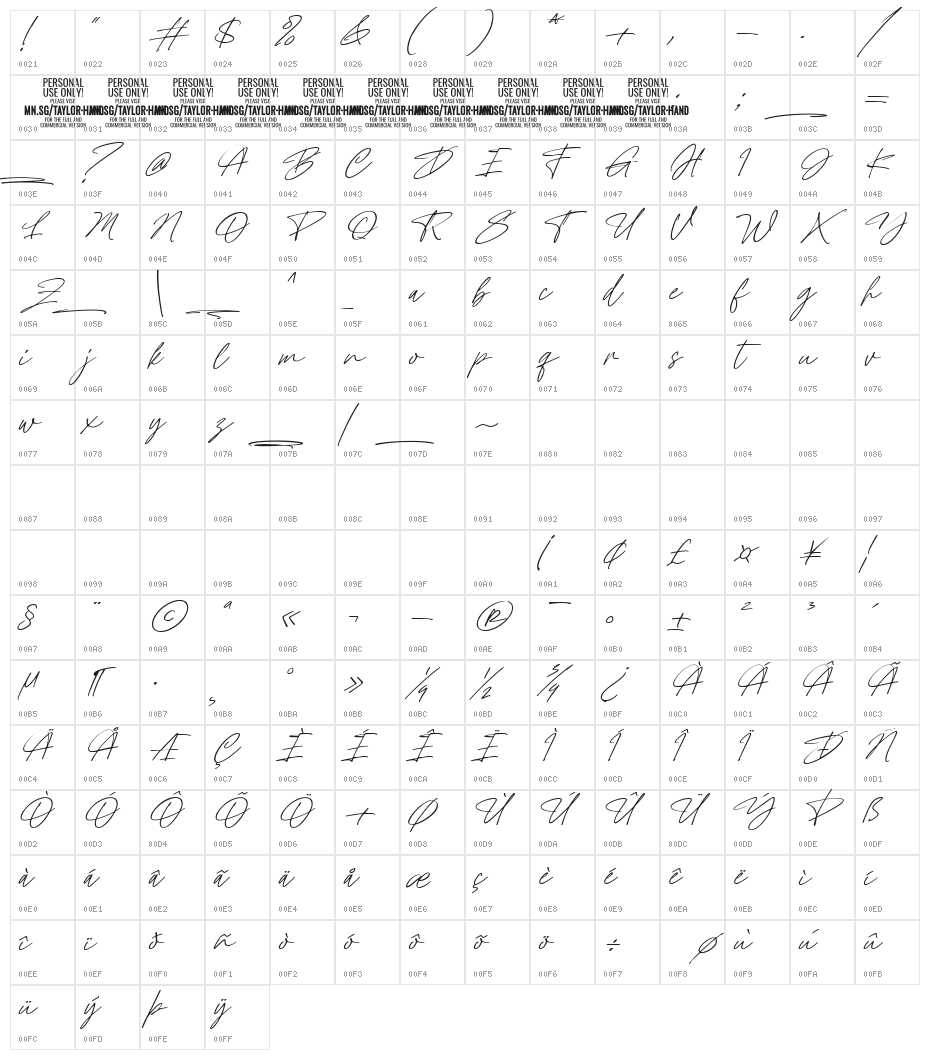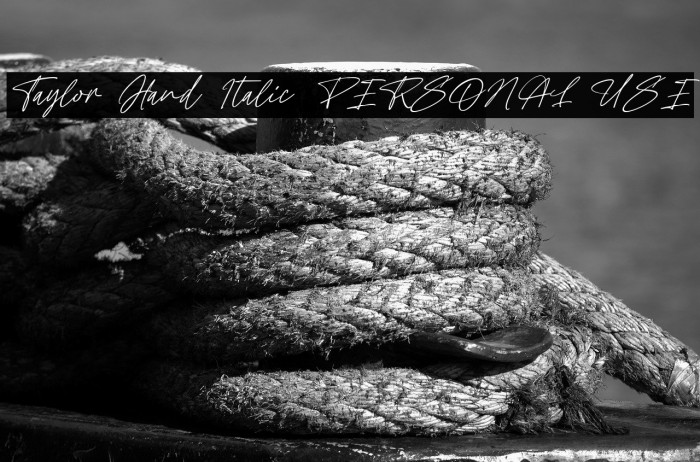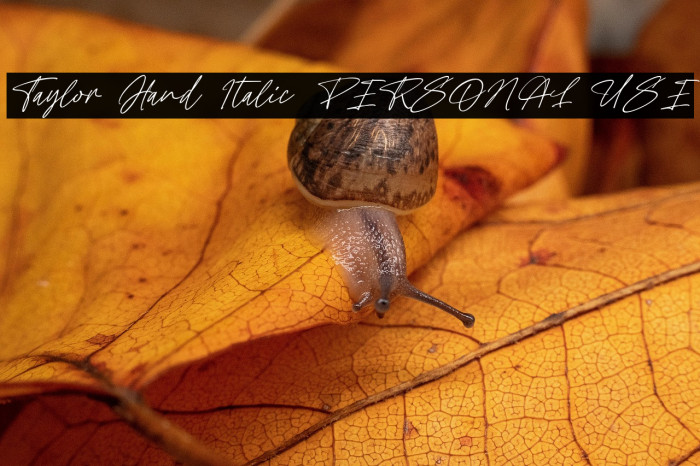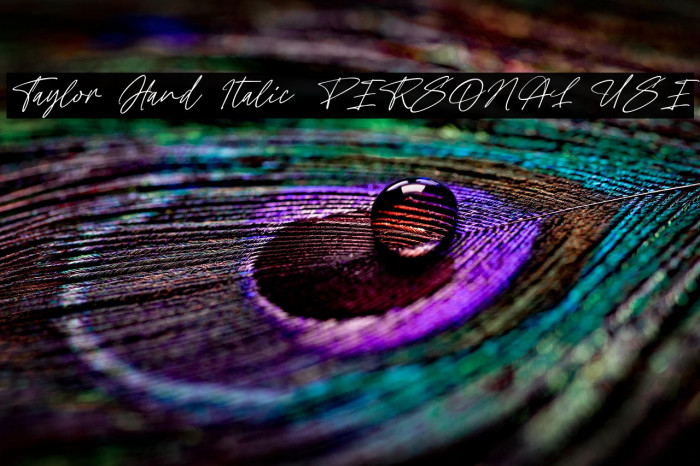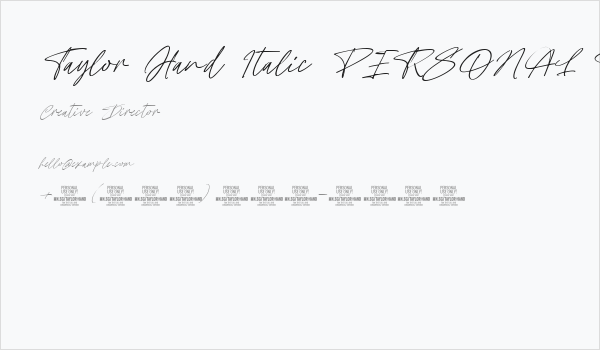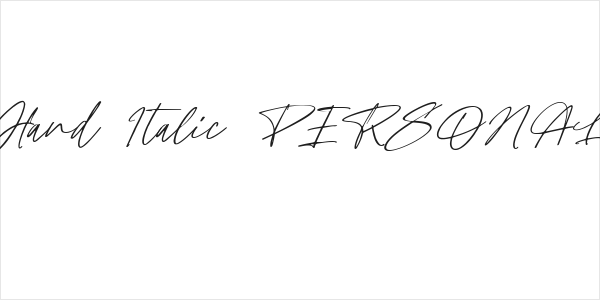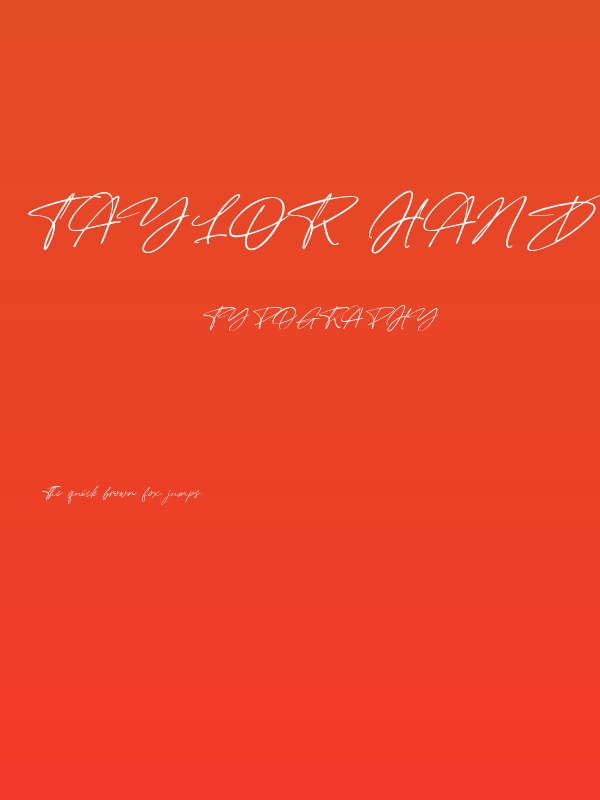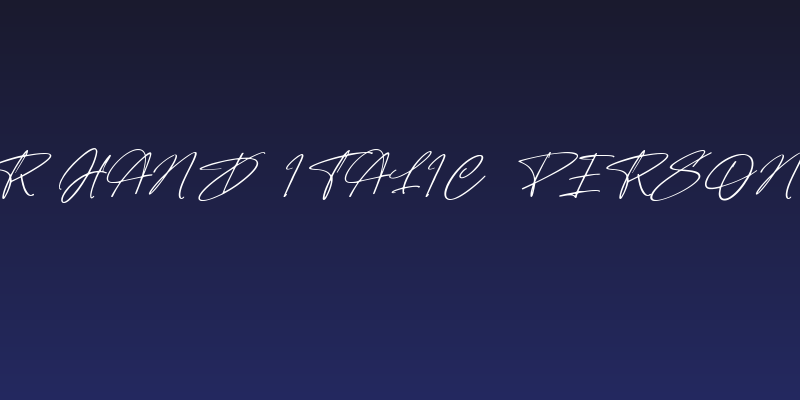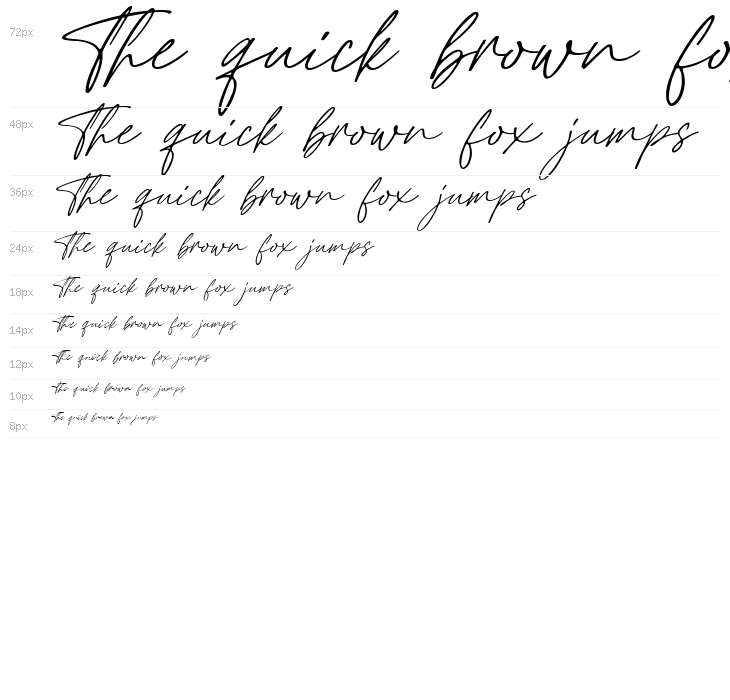
Taylor Hand Italic PERSONAL USE Font
Taylor Hand Italic PERSONAL USE Description
This font features an elegant, flowing script style that mimics natural handwriting. The letters are connected, with a slight slant to the right, giving it a dynamic and fluid appearance. The strokes vary in thickness, adding a sense of movement and grace. Uppercase letters are slightly larger and more elaborate, while lowercase letters maintain a consistent, smooth flow. The font includes a full set of numerals and a variety of special characters, making it versatile for different uses. Its overall aesthetic is both sophisticated and approachable, suitable for personal and creative projects.
| Use Case | Logos, Invitations, Personal projects |
| Proposed Projects | Ideal for wedding invitations, greeting cards, personal branding, and creative projects requiring a personal touch. |